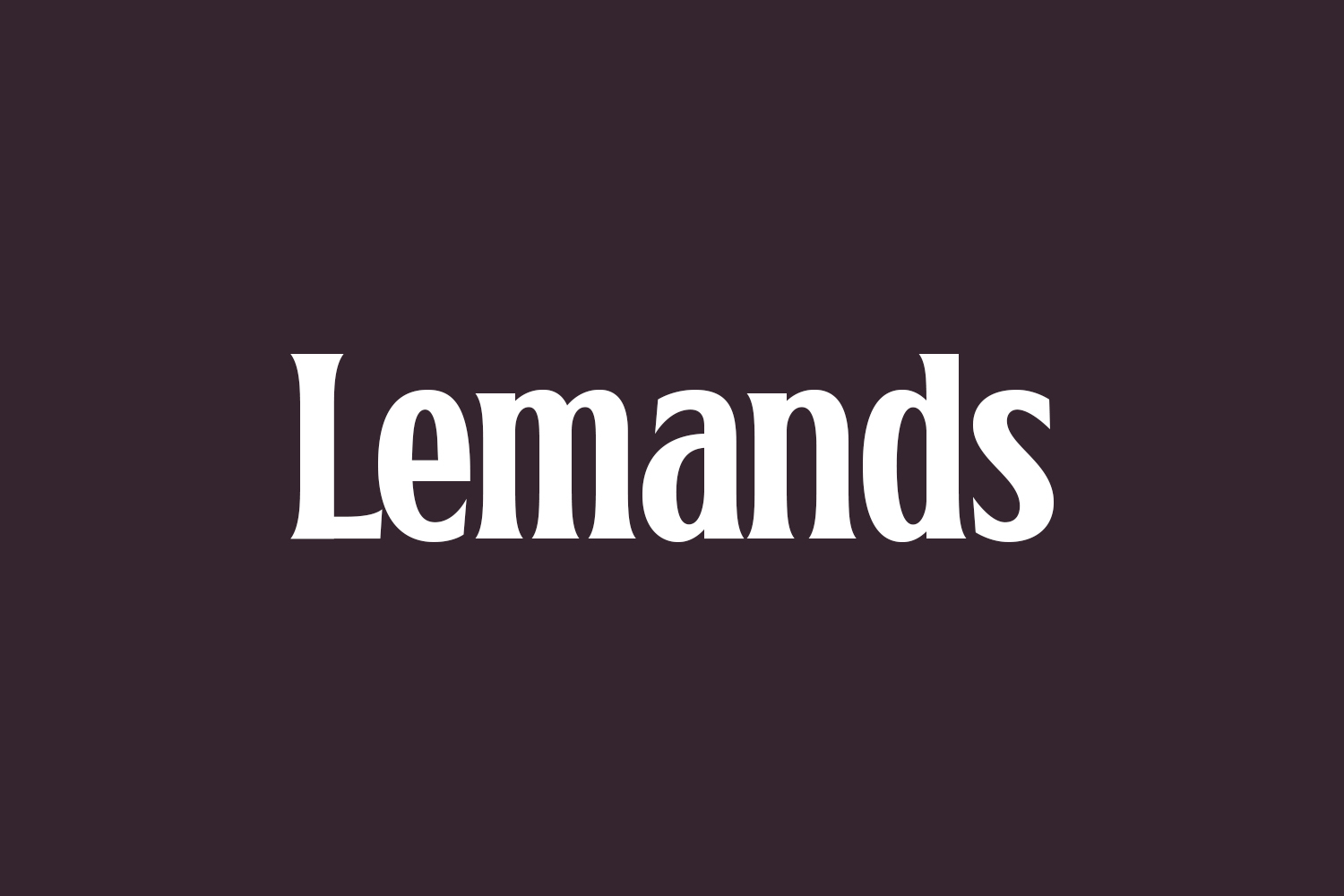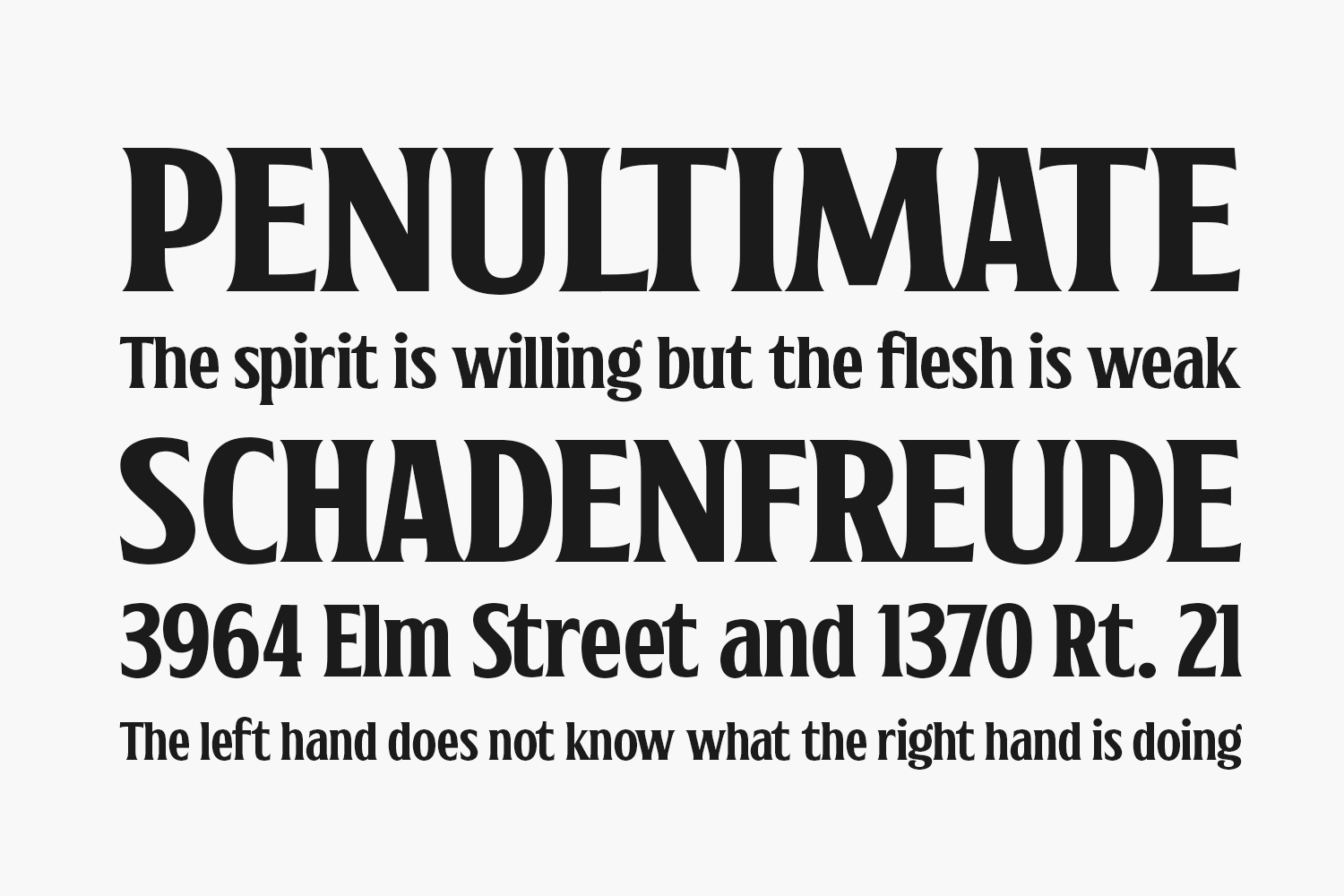
Lemands Free Font embodies strength and sophistication with its bold serif design. Highly adaptable, it seamlessly enhances various design projects, bringing them to new heights of excellence. Incorporate this versatile font into your creative ventures and experience the vibrant transformation it brings. Download the font for free if you need it for personal use or purchase the full version for commercial use.